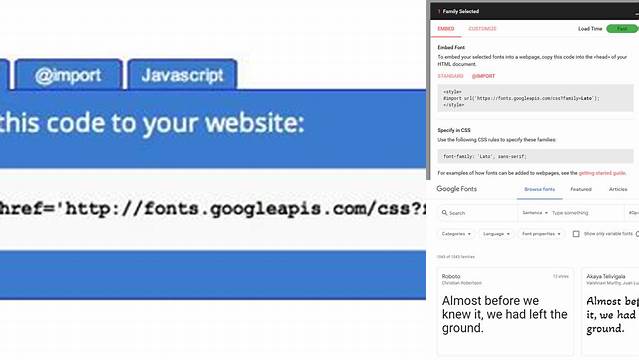
How To Embed Google Fonts In HTML: A Simple Guide
Hey guys! Ever wondered how to make your website look super cool with those awesome fonts you see everywhere? Well, today we're diving into the world of Google Fonts and how to easily embed them into your HTML. Trust me, it's simpler than you think! Let's get started, shall we?
1. What are Google Fonts and Why Use Them?
Okay, first things first. What exactly are Google Fonts? Simply put, they're a library of free, open-source fonts that you can use on your website. Think of it as a giant font playground! Why should you use them? Well, for starters, they can drastically improve the look and feel of your site. Imagine using a basic, boring font versus a sleek, modern one – huge difference, right? Plus, Google Fonts are optimized for the web, meaning they load quickly and look great on all devices. This is super important for user experience. If your site takes forever to load, people are going to bounce faster than a rubber ball. And nobody wants that!
Using Google Fonts also enhances your website’s accessibility. The wide variety of styles allows you to choose fonts that are easy to read and visually appealing to a broad audience. This consideration is essential for ensuring that your content reaches as many people as possible. Furthermore, the consistent availability of Google Fonts across different platforms means your website’s design will look the same to everyone, regardless of their operating system or browser.
Another compelling reason to use Google Fonts is the ease of integration. You don’t need to download any files or host fonts on your own server. Google takes care of all the technical stuff, allowing you to focus on your site’s design. This is particularly beneficial for beginners who might find the process of self-hosting fonts complex and time-consuming. With just a few lines of code, you can transform the typography of your entire website, giving it a professional and polished appearance. So, in summary, Google Fonts offer a fantastic way to enhance your website's aesthetic, performance, and accessibility, all while being completely free and easy to use.
2. Finding the Perfect Font for Your Project
Alright, now that we know why Google Fonts are awesome, let's talk about finding the perfect one for your project. Google Fonts has a huge selection, which can be a little overwhelming, but don't worry, we'll break it down. Think about the vibe you're going for. Is your website professional and serious? Maybe a clean sans-serif font like Roboto or Open Sans is the way to go. Are you aiming for something more playful and creative? Then you might like a serif font like Playfair Display or a handwritten style like Pacifico. Take your time, browse the options, and don’t be afraid to experiment. You can even filter by categories like serif, sans-serif, display, and handwriting to narrow down your choices.
When selecting a font, consider your website’s content and audience. A tech blog, for example, might benefit from a modern and sleek font, while a children’s book website might prefer something more whimsical and playful. Also, think about readability. A beautiful font is useless if it’s hard to read. Look for fonts that have clear, well-defined characters and good spacing. You can use Google Fonts' built-in preview tool to see how your text looks in different sizes and styles. This feature is super helpful for making sure the font works well for headings, body text, and other elements of your site.
Don't forget to check out font pairings! Sometimes, using a combination of two fonts can create a more dynamic and visually appealing design. Google Fonts suggests popular pairings, which can be a great starting point. For instance, pairing a bold heading font like Montserrat with a clean body font like Lato can add contrast and visual interest to your page. Finally, remember that less is often more. Stick to one or two fonts for a clean and cohesive look. Overusing fonts can make your site look cluttered and unprofessional. So, take your time, explore the options, and find the perfect fonts that represent your brand and enhance your content.
3. Choosing the Right Font Weights and Styles
So, you've found a font you love! Awesome! But wait, there's more. Most Google Fonts come in different weights and styles, like bold, italic, and light. Choosing the right ones is key to making your website look professional and polished. Think of font weights as the thickness of the font. A lighter weight is thin and delicate, while a heavier weight is bold and strong. Styles, on the other hand, refer to variations like italic or condensed. When selecting weights and styles, consider the purpose of the text. Headings, for example, often look great in a bold weight, while body text might be more readable in a regular or light weight. Using italics for emphasis can also add visual interest, but don't overdo it! Too many italics can make your text look cluttered and hard to read.
Also, remember that each weight and style you choose adds to the page load time. The more variations you select, the larger the font file becomes, and the longer it takes to download. This can impact your website's performance, which, as we talked about earlier, is super important for user experience. So, be mindful of the number of weights and styles you choose. Start with the ones you need most and add others if necessary. Google Fonts lets you customize your selection and see the impact on page load time, which is a handy feature to keep in mind.
It's also worth thinking about the consistency of your font choices. Stick to a limited palette of weights and styles to maintain a cohesive look across your website. For example, you might choose to use a bold weight for headings, a regular weight for body text, and italics for quotes or captions. This consistent approach will make your website look more polished and professional. Ultimately, the right font weights and styles can significantly enhance the readability and visual appeal of your site. So, take the time to experiment and find the combinations that work best for your content and design.
4. Generating the HTML Embed Code from Google Fonts
Another tip is to use the font-display property in your CSS. This property tells the browser how to handle font loading. Setting font-display: swap; is generally a good idea. This tells the browser to display the text in a fallback font while the Google Font is loading, and then